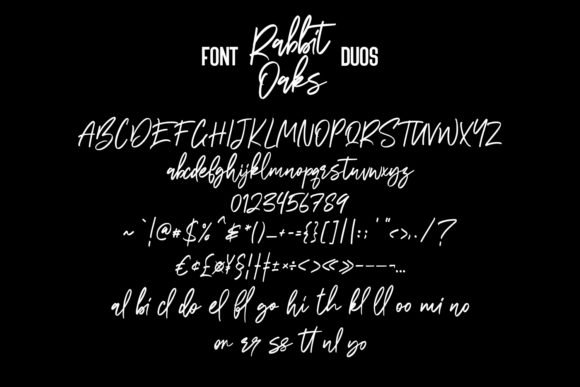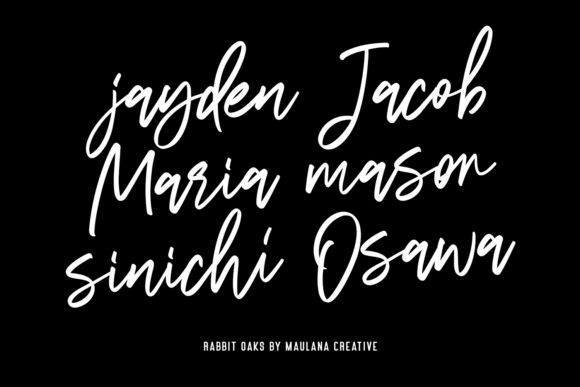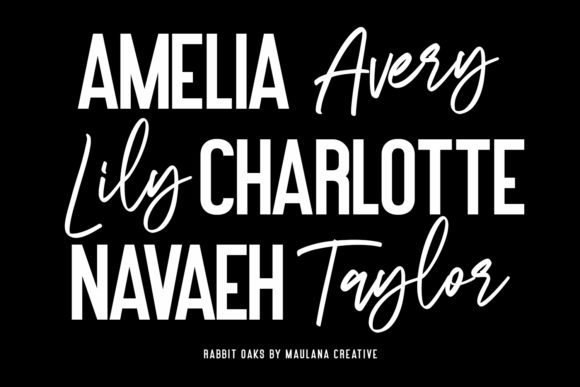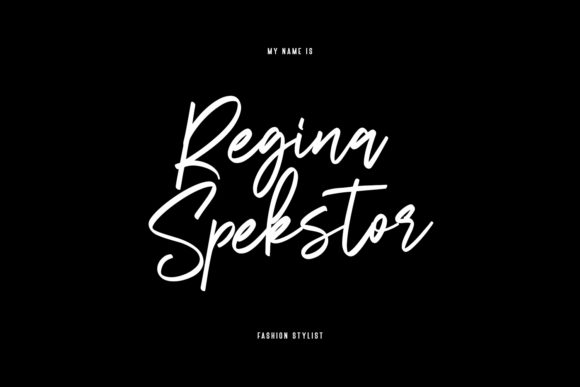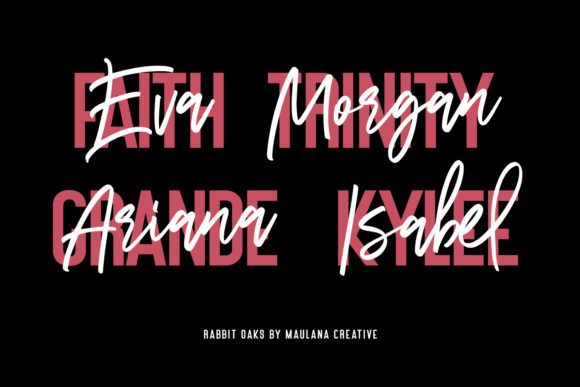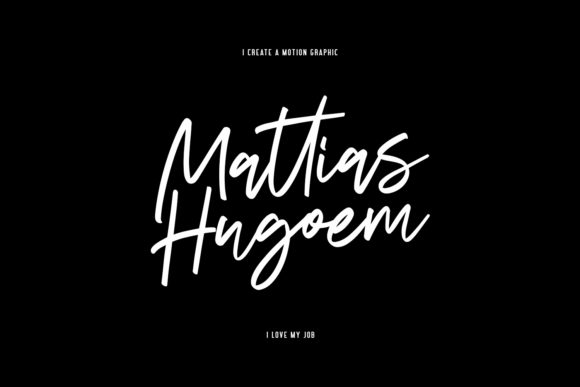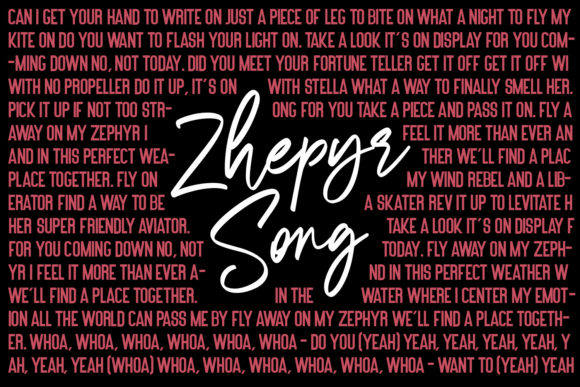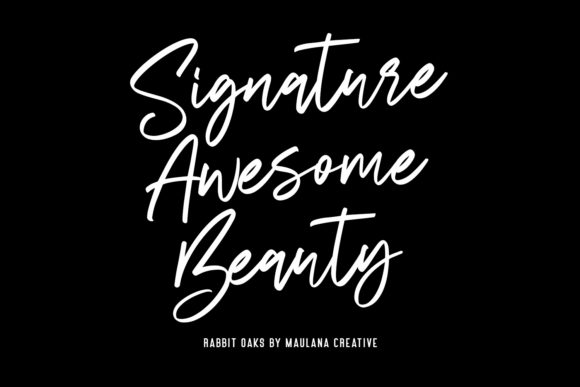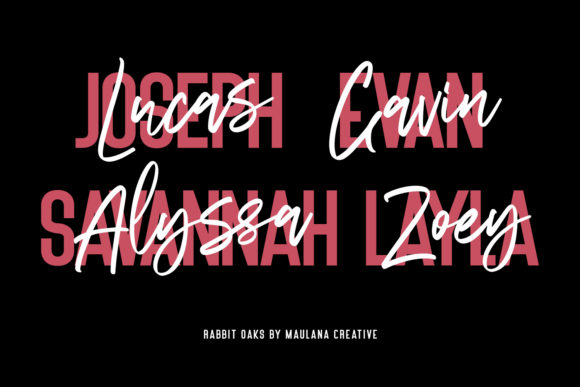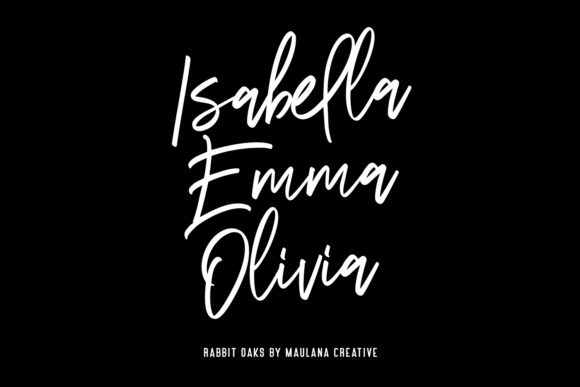
Rabbit Oaks Font
About Rabbit Oaks Font
Rabbit Oaks duo font is an authentic brush handwritten font. It comes in two styles: sans serif and script. This versatility means that this font can be used in a wide variety of applications from logos, to social media posts- the only limit is your imagination!